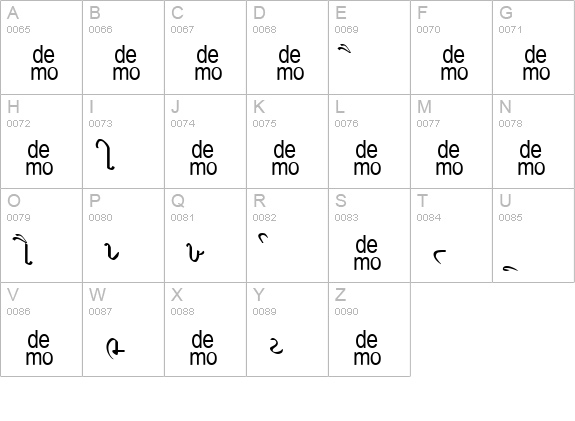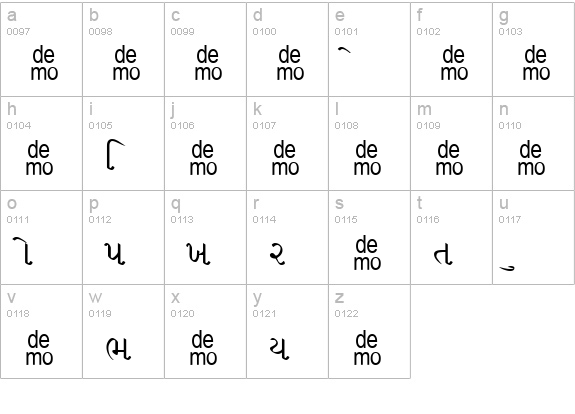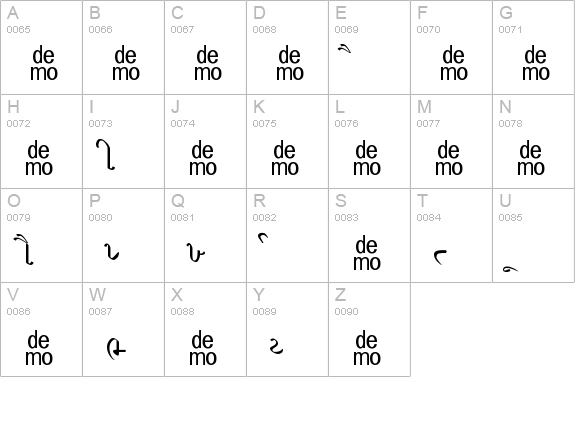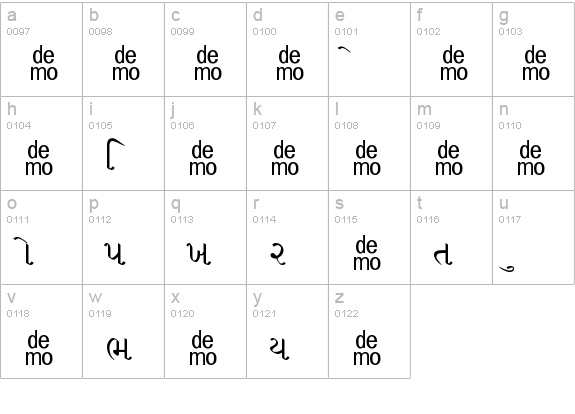
Gujrati Saral-DEMO Font Details
Gujrati Saral-DEMO font is a beautifully designed typeface that combines traditional elegance with modern simplicity. This font is perfect for adding a touch of sophistication to any project, whether it's for print or digital use. With its clean lines and easy readability, Gujrati Saral-DEMO font is versatile and can be used for a variety of design purposes. The best part is that Gujrati Saral-DEMO font is available for free download at FontsMarket.com. This means you can easily access this stunning font without any cost, making it a great choice for designers looking to enhance their creative projects without breaking the bank. Don't miss out on the opportunity to add Gujrati Saral-DEMO font to your font collection today!